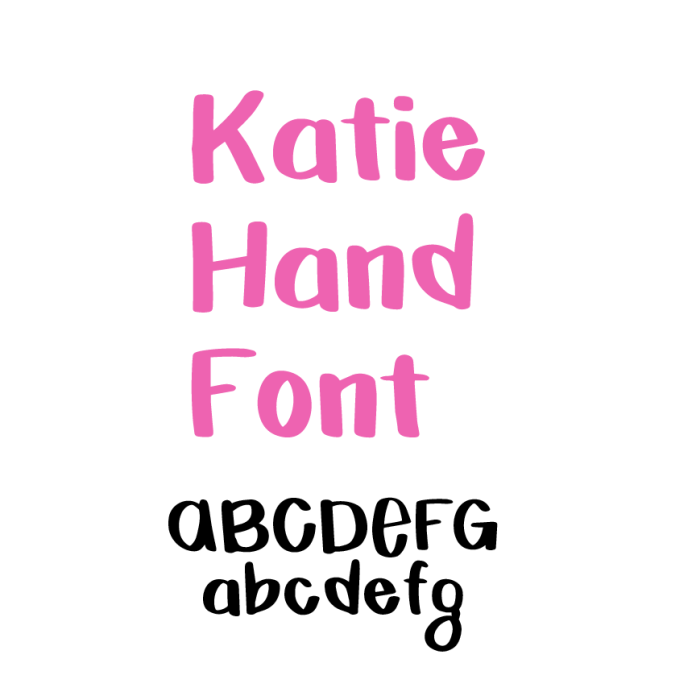
ring your projects to life with Katie Hand Font! This beautifully crafted handwritten font exudes charm and personality, making it perfect for adding a personal touch to your designs. Whether you're creating custom cards, wall art, invitations, or digital projects, Katie Hand Font offers a natural, stylish look that’s both versatile and timeless. Designed for easy use in Silhouette Studio, this font is a must-have for crafters and designers alike. Add a little elegance and a lot of creativity to your next project—download Katie Hand Font today and let your imagination shine!